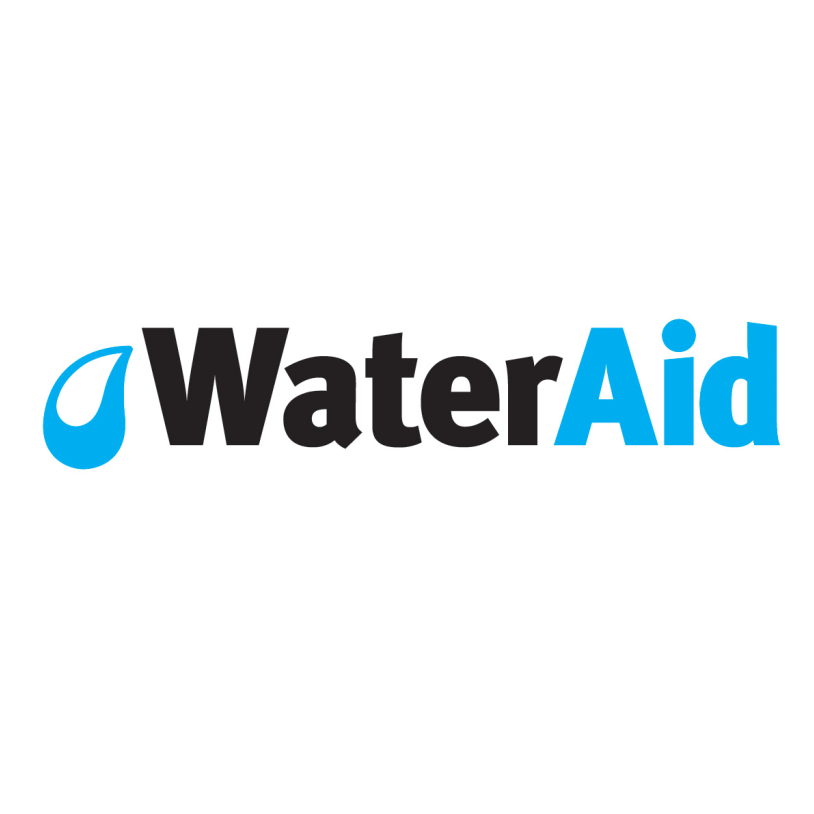
WaterAid Logo Font
Fonts in UseWaterAid is an international non-profit organization that aims to improve access to clean water, sanitation, and hygiene in some of the world's poorest communities. They work in over 30 countries to provide sustainable solutions and empower communities to take control of their own water and sanitation needs.
The WaterAid logo employs the FF Meta Black font, a humanist sans-serif typeface designed by Erik Spiekermann and released in 1991 as part of his FontFont library.